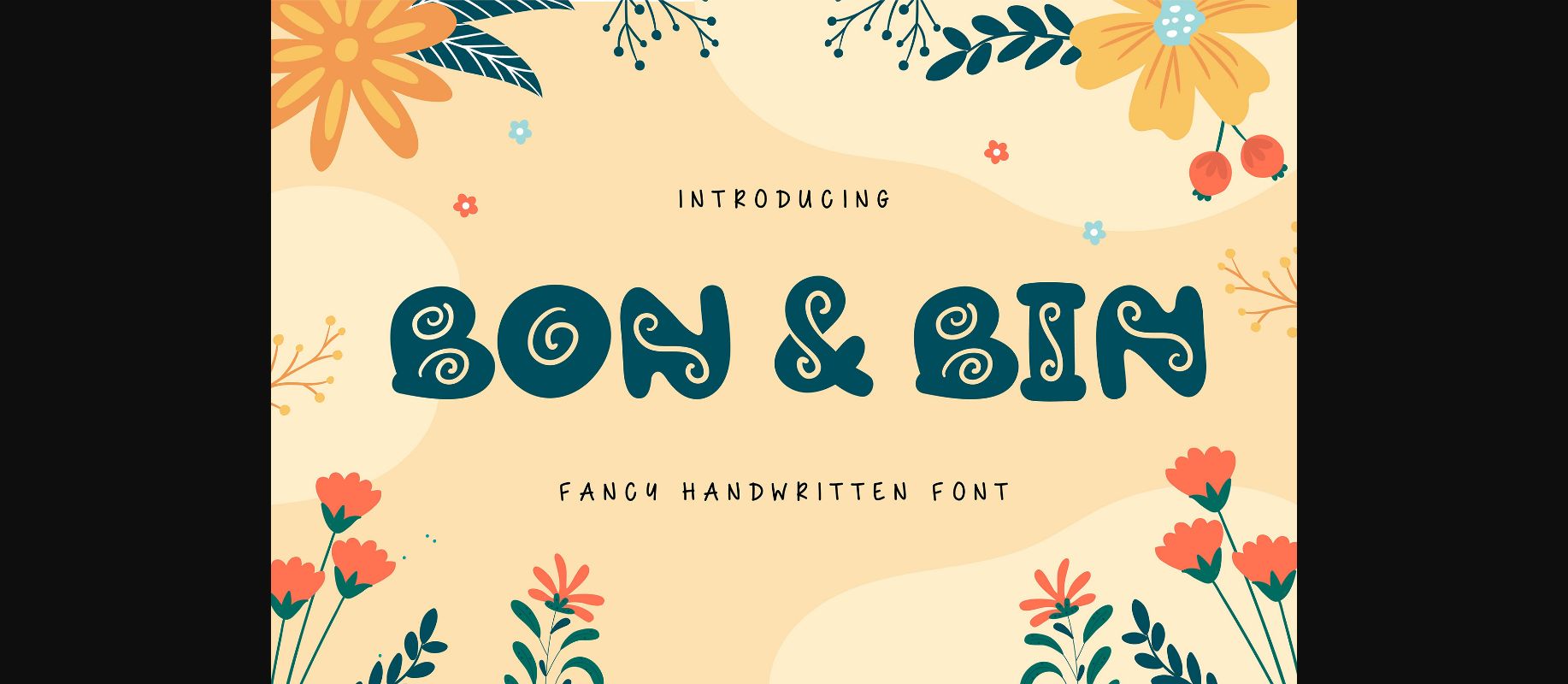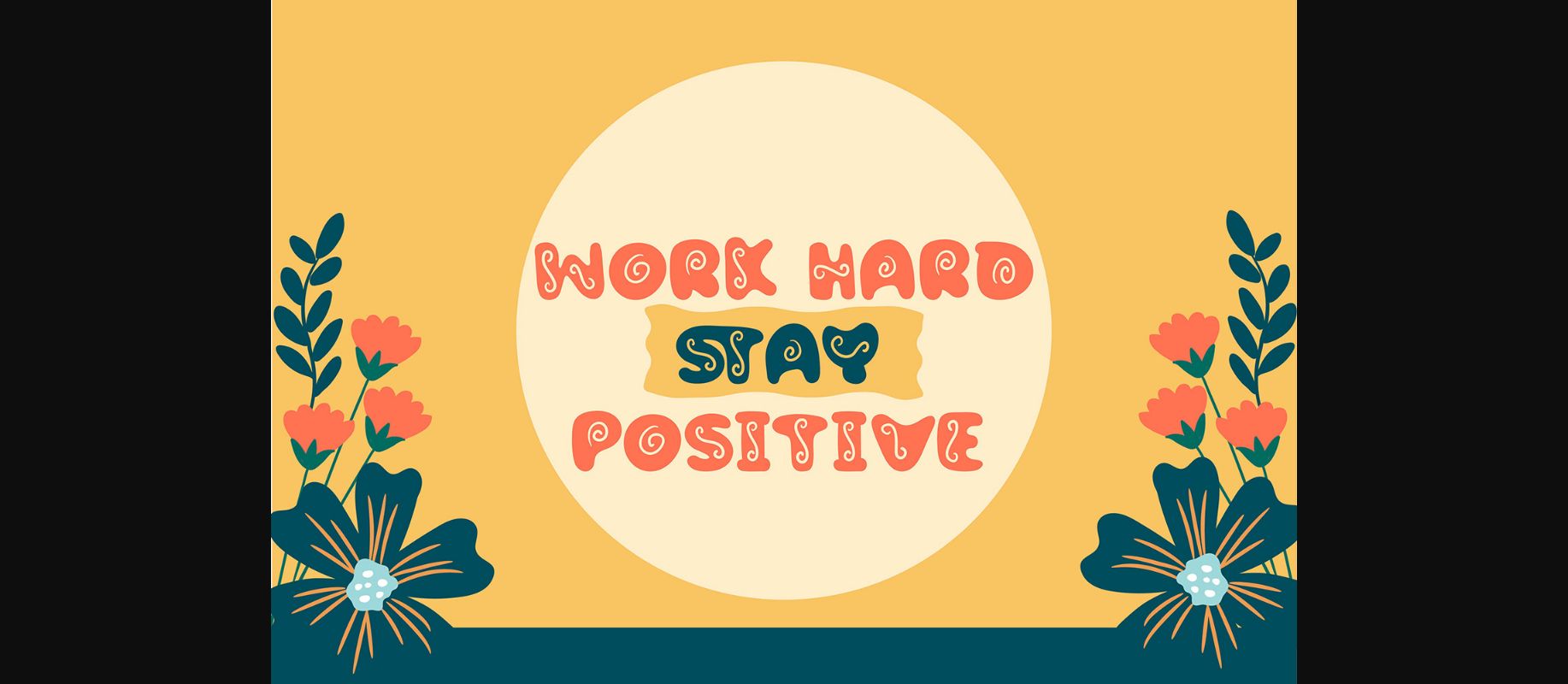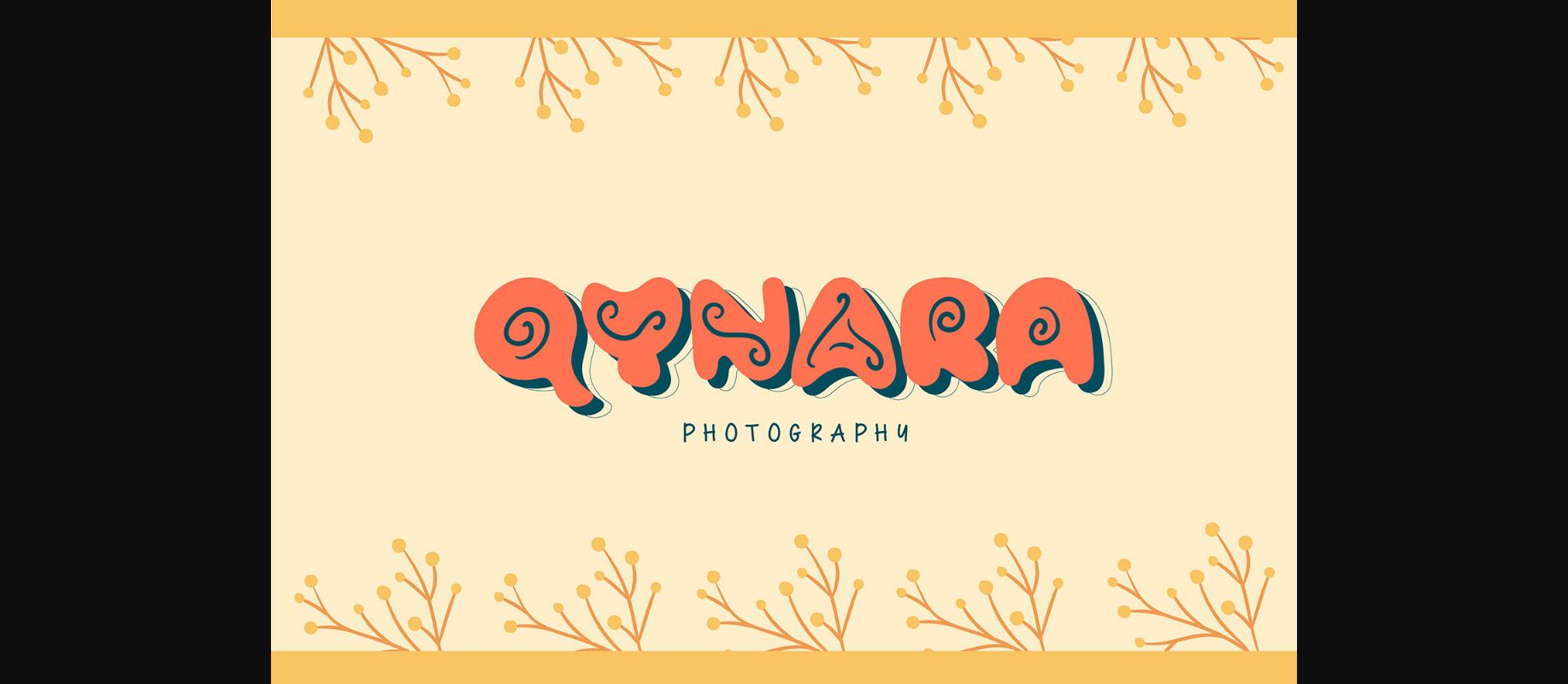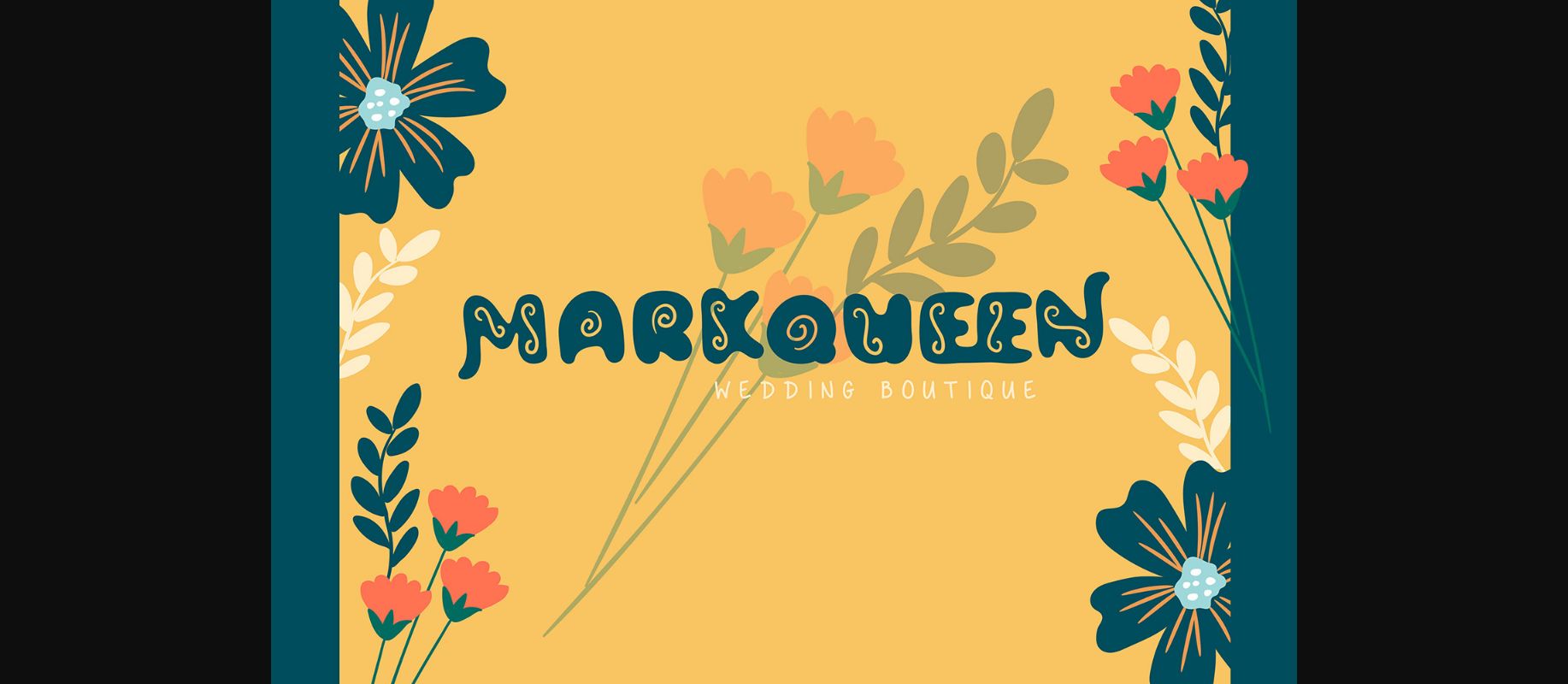
About Bon & Bin Font
Bon & Bin is a cool, unique and playful decorative font. It is PUA encoded which means you can access all of the glyphs and swashes with ease! This font is perfect for children themed designs, especially when combined with bright colors.